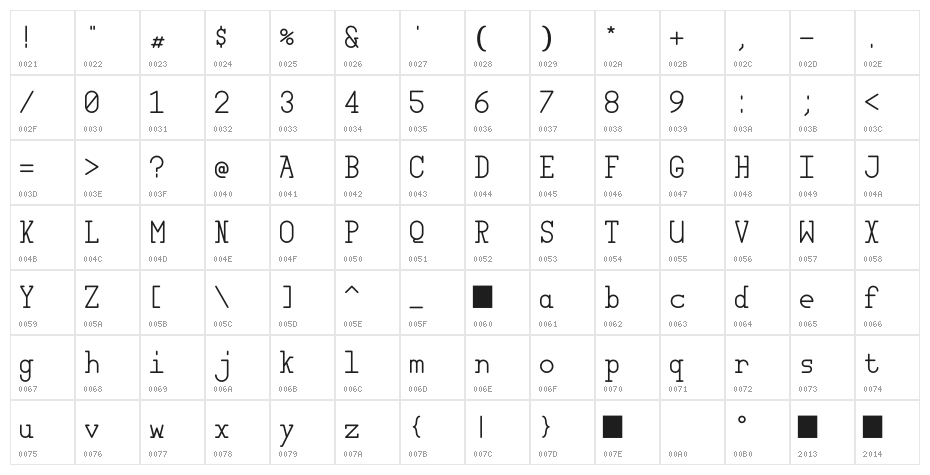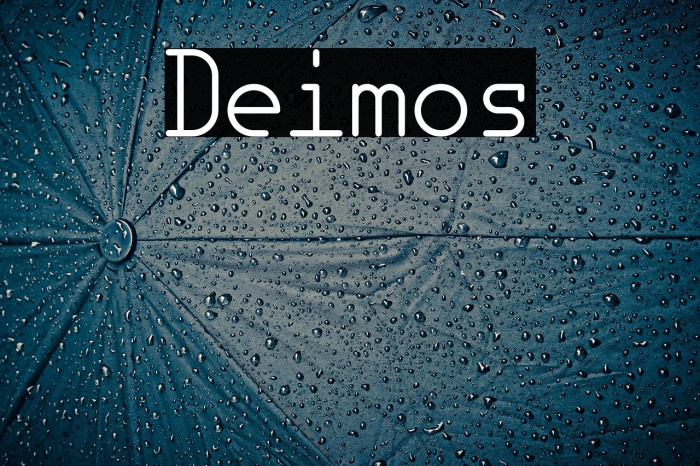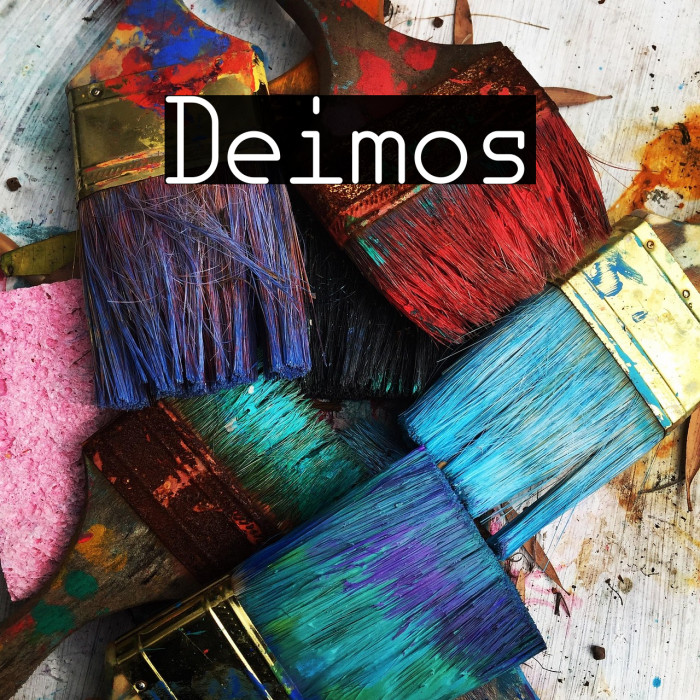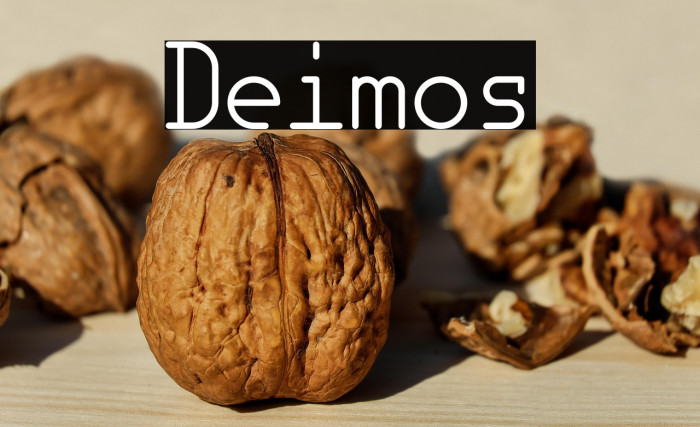
Deimos Font
Deimos Description
This font features a clean, geometric design with a monospaced structure, giving it a modern and technical appearance. Each character is evenly spaced, contributing to its readability and uniformity. The strokes are consistent in width, providing a low contrast throughout the typeface. The rounded edges of the characters soften the overall look, making it approachable and versatile. The uppercase letters are bold and prominent, while the lowercase letters maintain a balanced proportion, ensuring clarity in both headings and body text. The numerals are distinct and easily distinguishable, enhancing the font's functionality for numerical data. Special characters are well-integrated, maintaining the font's cohesive style.
| Use Case | Coding, Technical documents, Branding |
| Proposed Projects | Ideal for coding environments, technical documents, and modern branding projects. |